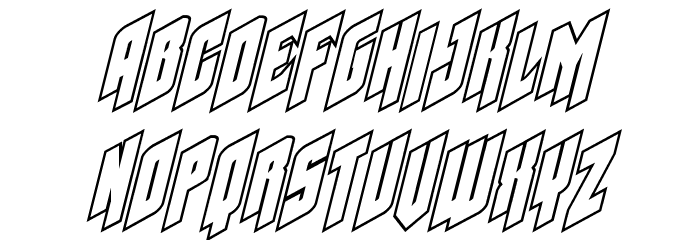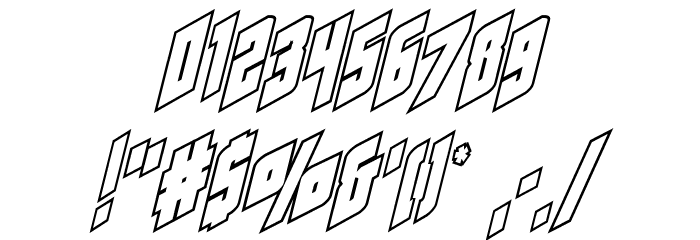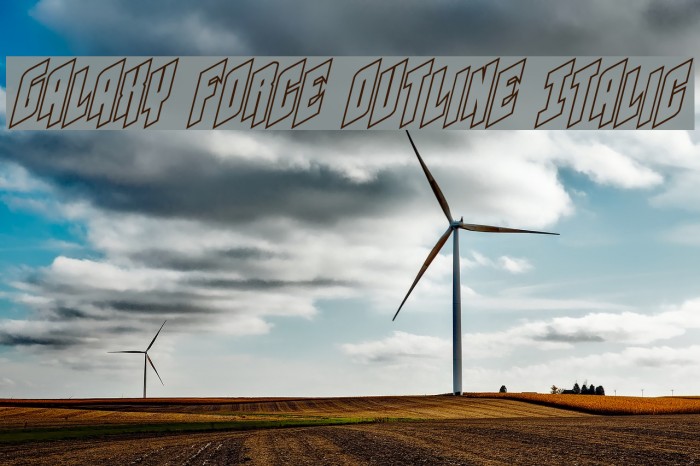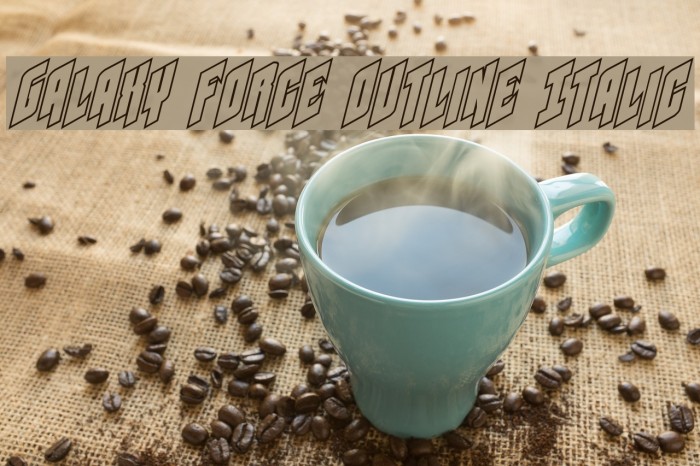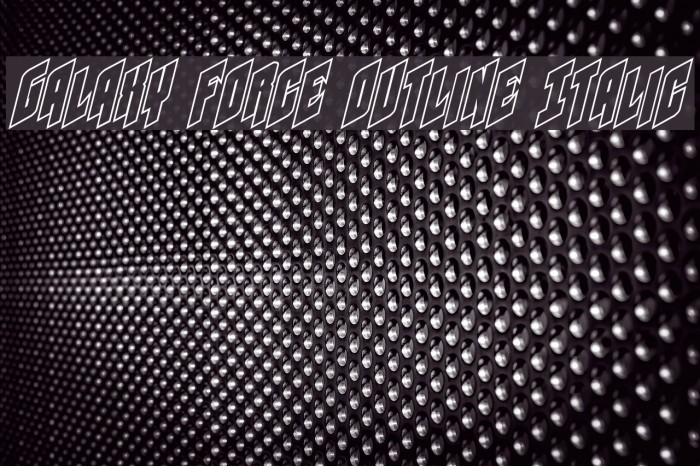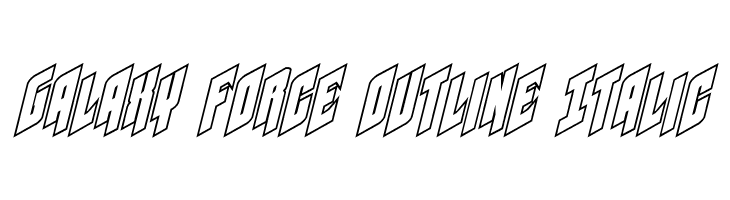
Galaxy Force Outline Italic Font
This font features a bold, futuristic design with an outlined style that gives it a dynamic and energetic appearance. The italicized slant adds a sense of motion, making it ideal for projects that require a modern and edgy look. The characters are angular and sharp, with a consistent stroke width that maintains clarity and readability. The outline effect enhances the visual impact, making it suitable for attention-grabbing headlines or logos. The font's unique style is reminiscent of sci-fi themes, making it perfect for creative projects that aim to stand out.
A bold, outlined, and italicized font with a futuristic and dynamic style.
- Proposed Projects: Ideal for sci-fi themed designs, video game titles, movie posters, and branding that requires a modern and edgy look.